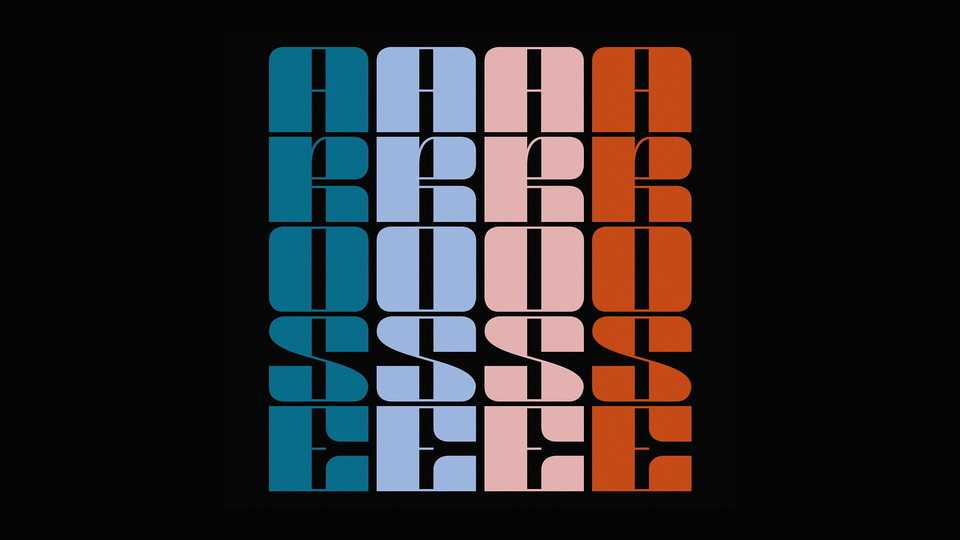
Download Arose Font, a monumental display typeface, with very expressive boldness, and strong contrasts between its dense weight and thin lines. Arose is heavily inspired by 70’s lettering and signage, making a nostalgic and yet contemporary alphabet.
Designer: Celia Fernandez Gonzalez